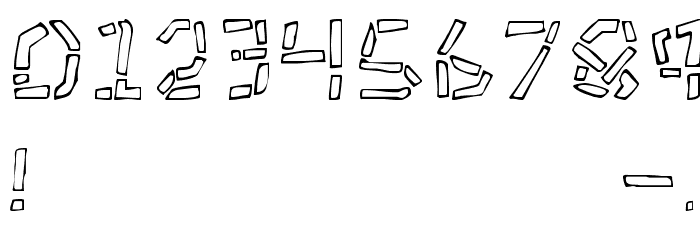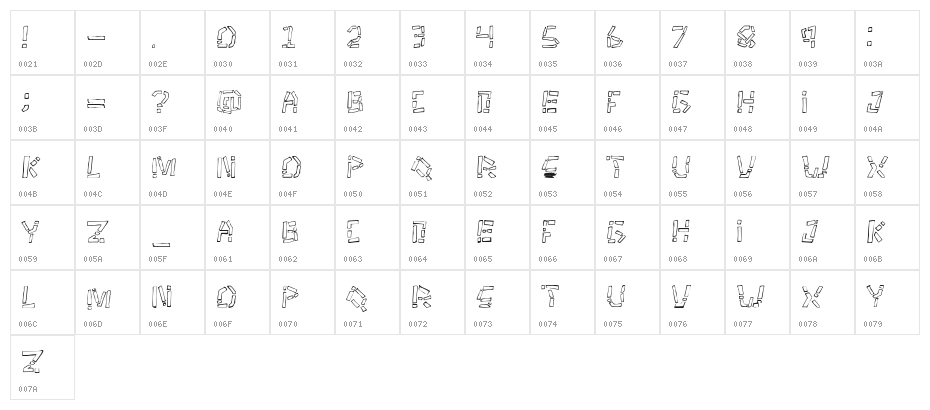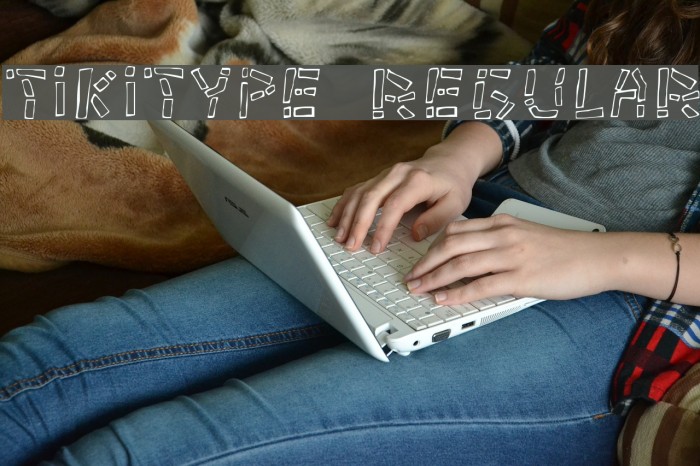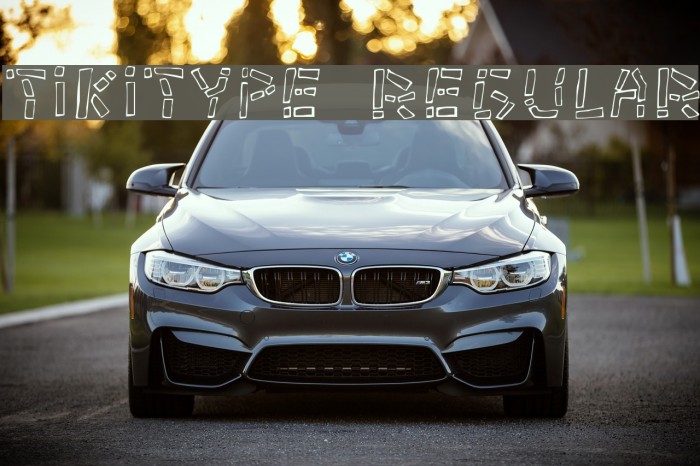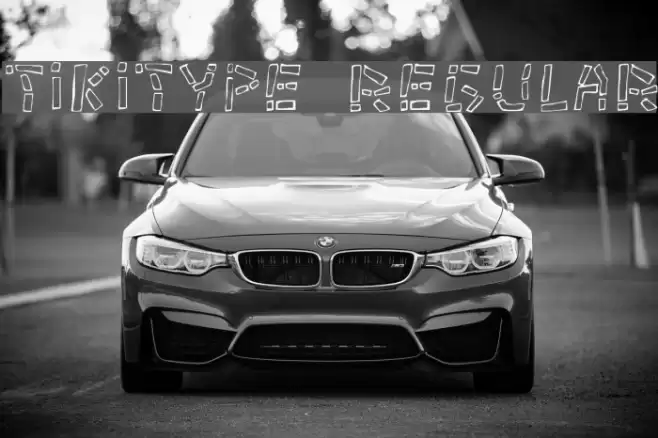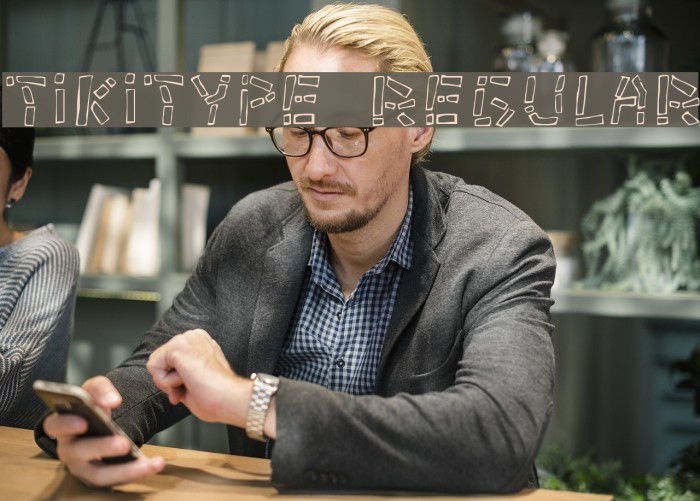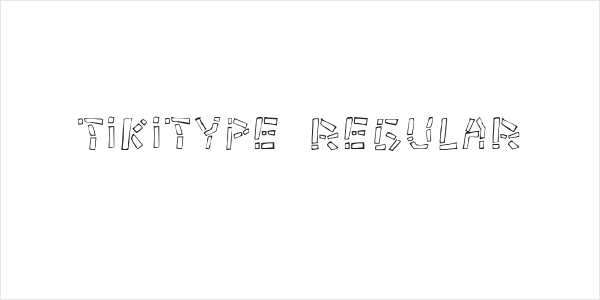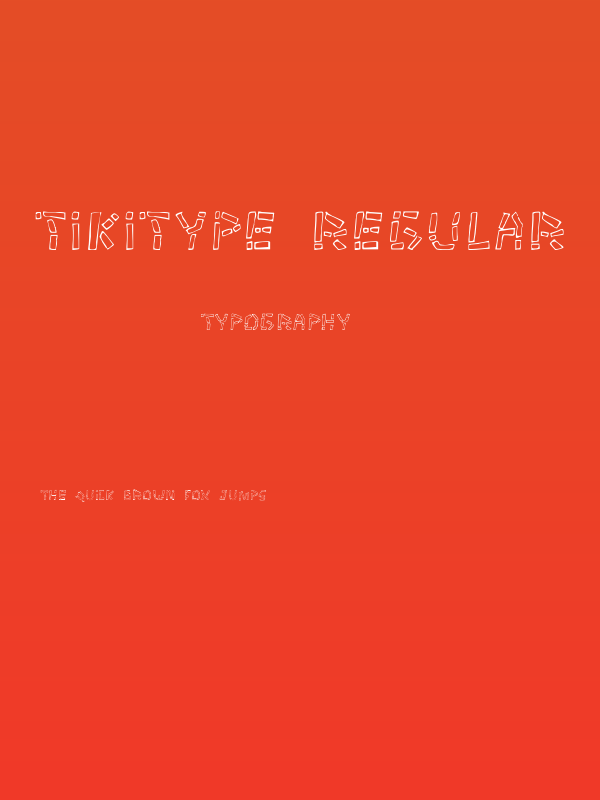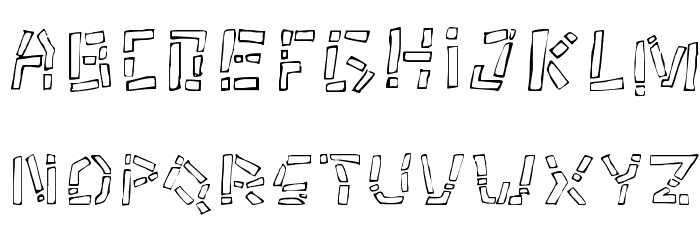
Tikitype Regular Font
Tikitype Regular Description
This font features a unique, geometric design with a playful and modern aesthetic. Each character is constructed from a series of angular, disconnected lines that form the shape of the letter or number. The style is reminiscent of a digital or pixelated look, with a distinct, futuristic vibe. The uppercase and lowercase letters maintain a consistent design, with the uppercase being slightly larger and more pronounced. Numbers and special characters follow the same geometric pattern, ensuring a cohesive appearance across all glyphs. The font's open and airy structure gives it a light and dynamic feel, making it suitable for creative and contemporary projects.
| Proposed Projects | Ideal for digital art, tech-themed designs, modern posters, and creative branding. |